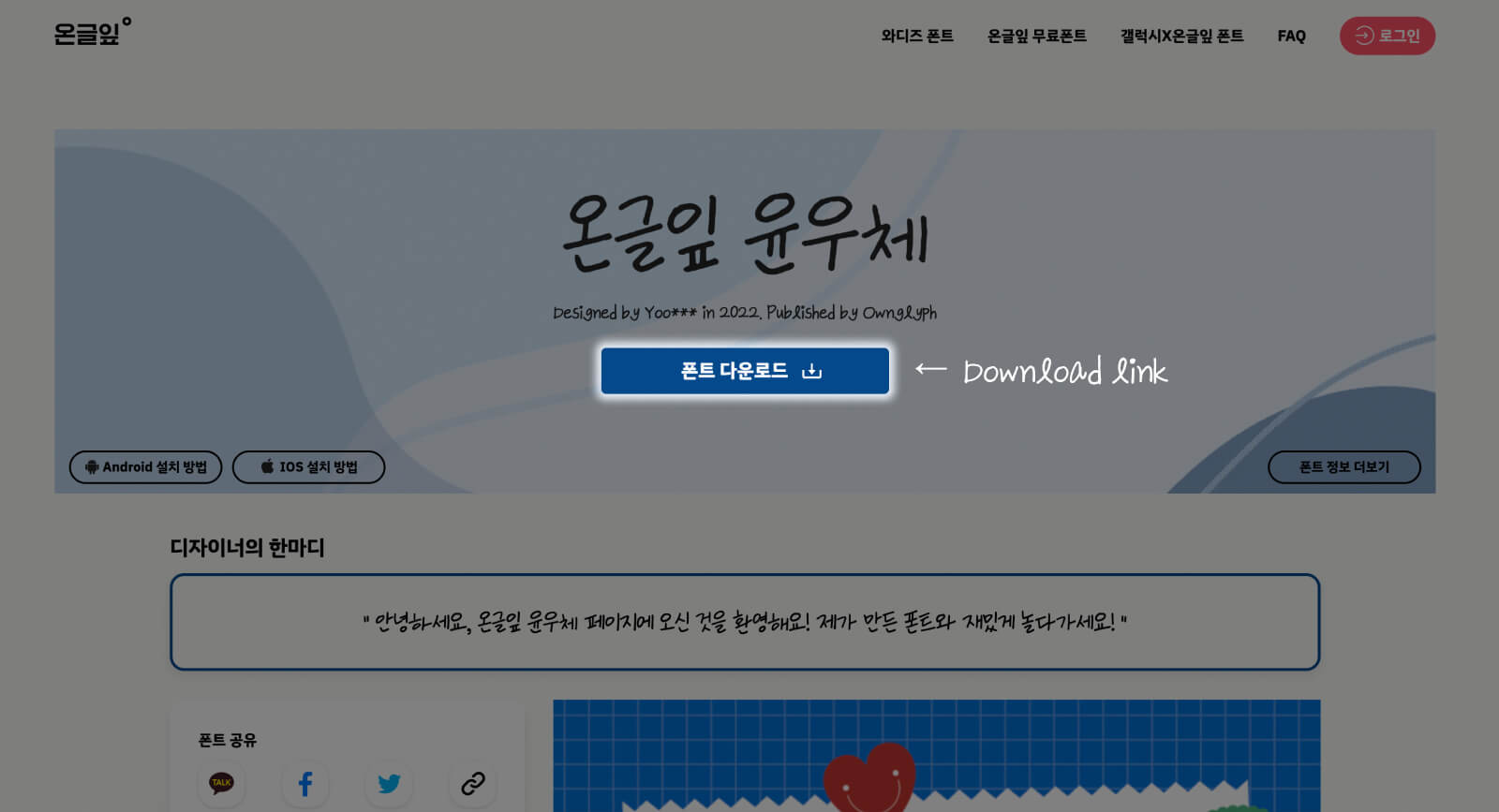
Ownglyph YoonwooChae
Ownglyph YoonwooChae (온글잎 윤우체) is a scribbly yet tidy handwriting style Korean font that is free for download. The strokes are lighter, and comes with the handwriting textures, giving it a very realistic depiction of handwriting effect on papers. I also love how each letters are slanting up which gives a sense of rhythmic flow and dynamic to it. For Latin characters, I like the depiction of the lowercase “l” which looks like a looping ribbon.
Again, like many other Ownglyph fonts, Ownglyph YoonwooChae was created with Ownglyph app, a now decommissioned font creation service from Korea. It comes with the standard Korean characters and basic Latin characters and punctuations, good enough for daily use. You can download this font for free and be used on personal and commercial projects.